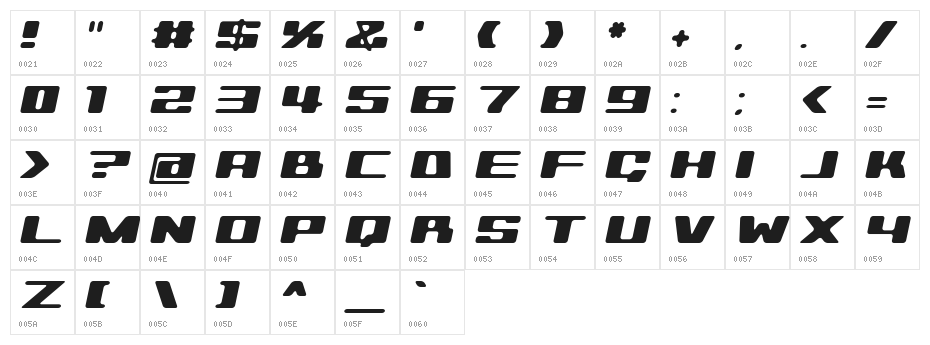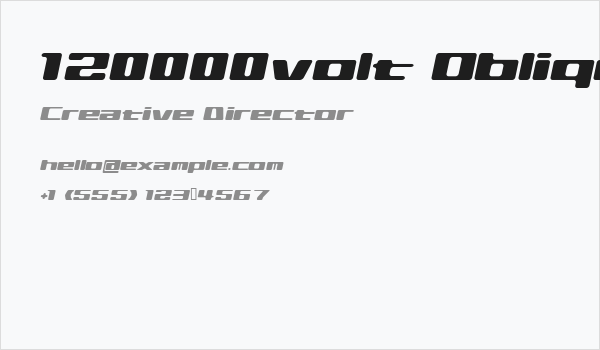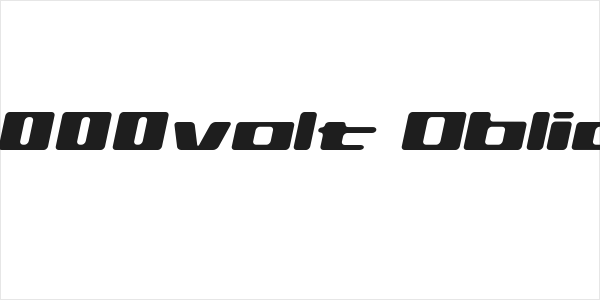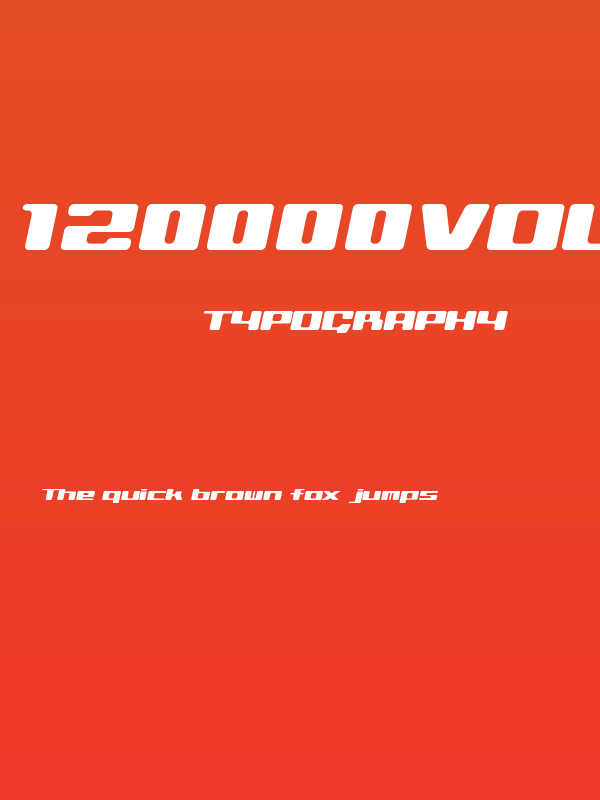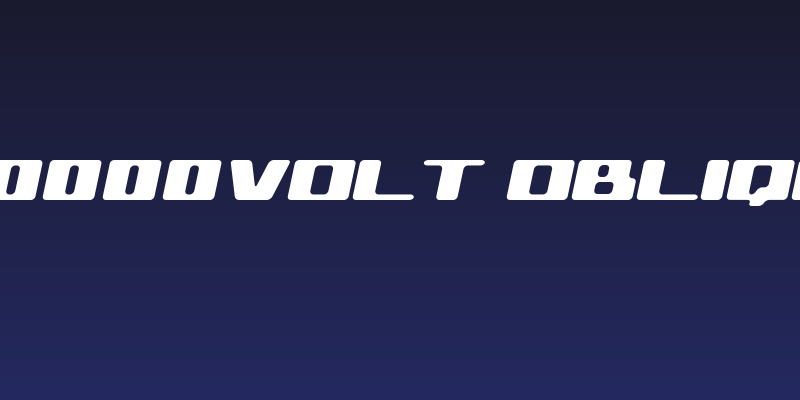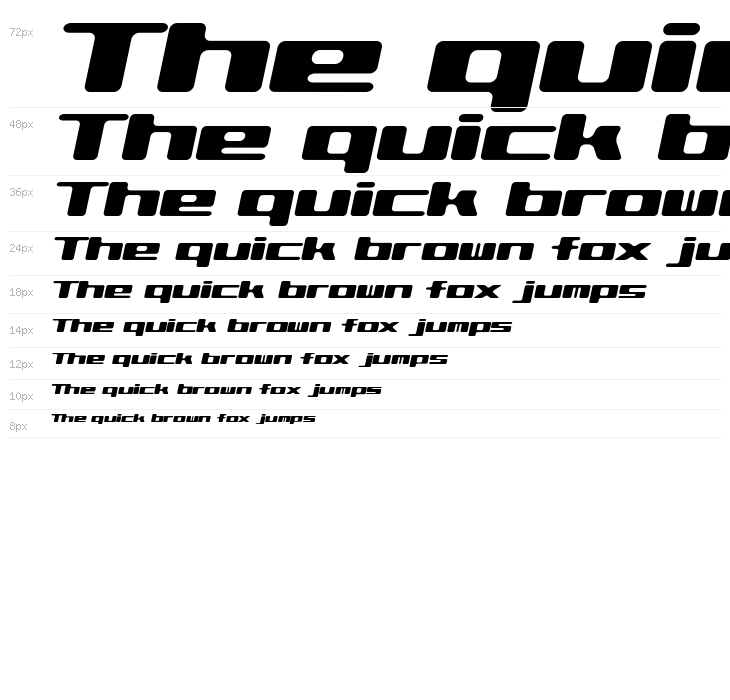
120000volt Oblique Font
120000volt Oblique Description
This font features a bold and dynamic style with a futuristic and industrial feel. The characters are slightly slanted, giving an oblique appearance that enhances its modern aesthetic. Each letter is constructed with thick, uniform strokes, creating a strong visual impact. The design incorporates angular cuts and geometric shapes, adding a sense of movement and energy. The uppercase and lowercase letters maintain a consistent style, while the numerals and special characters complement the overall design. This font is ideal for projects that require a bold and assertive look, such as technology branding, sports team logos, or dynamic advertising campaigns.
| Use Case | Logos, Headlines, Advertising |
| Proposed Projects | Ideal for technology branding, sports logos, dynamic advertising, and modern packaging. |